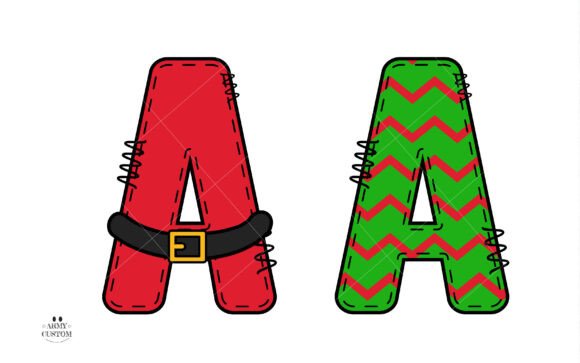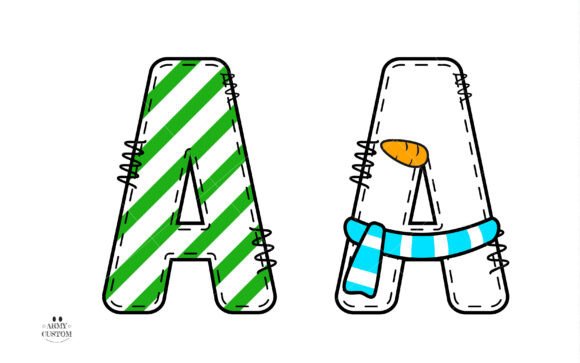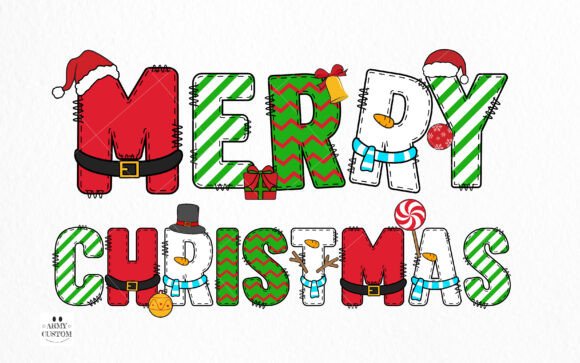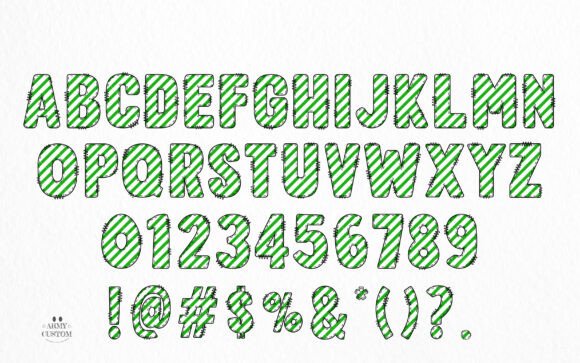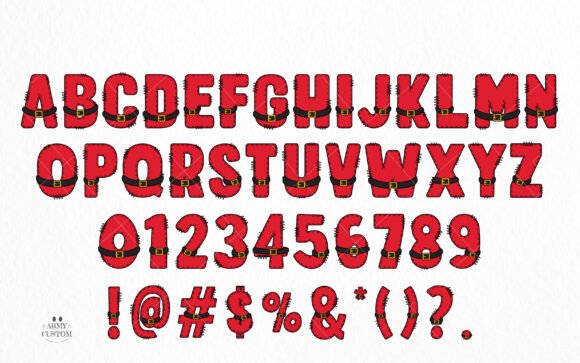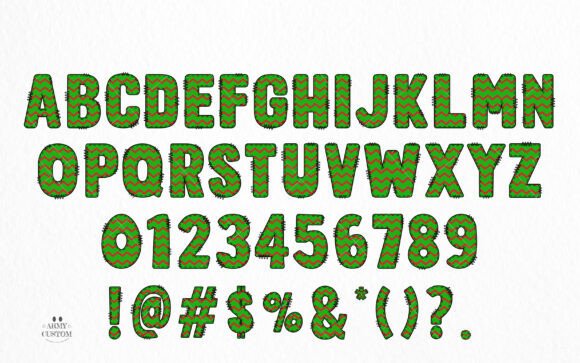
Deck the Halls with the Whimsical Christmas Army Bundle Font
It’s the most wonderful time of the year, and what better way to spread holiday cheer than with a delightful font that captures the essence of the season? Look no further than the ‘NO.8 Christmas Army Font’, a playful and charming addition to your holiday design toolkit. In this article, we’ll dive into the magic of this festive font and explore how it can elevate your holiday projects.
A Font that’s Merry and Bright
The Christmas Army Bundle Font is a jovial and whimsical font that’s sure to bring a smile to your face. Its unique style is reminiscent of vintage army fonts, but with a holiday twist that’s sure to delight. Whether you’re creating vibrant holiday decorations, designing festive party invitations, or simply adding a dash of merriment to your design projects, this font is the perfect choice.
Inspired by Santa’s Helpers
This delightful font is inspired by the adorable antics of Santa’s helpers, bringing a sense of joy and playfulness to every letter. The Christmas Army Bundle Font is the perfect way to add a touch of holiday magic to your designs, making it an ideal choice for crafters, designers, and anyone looking to create festive and fun projects.
With the Christmas Army Bundle Font, the design possibilities are endless. Here are just a few ideas to get you started:
- Create festive holiday decorations, such as garlands, banners, and signs
- Design fun and playful party invitations, gift tags, and cards
- Add a touch of holiday cheer to your social media graphics and posts
- Make personalized holiday gifts, such as customized mugs, t-shirts, and tote bags
Tips and Tricks for Using the Christmas Army Bundle Font
To get the most out of this delightful font, here are a few tips and tricks to keep in mind:
- Use the font in combination with other festive fonts and graphics to create a unique look
- Don’t be afraid to get creative and try out new and unusual design ideas